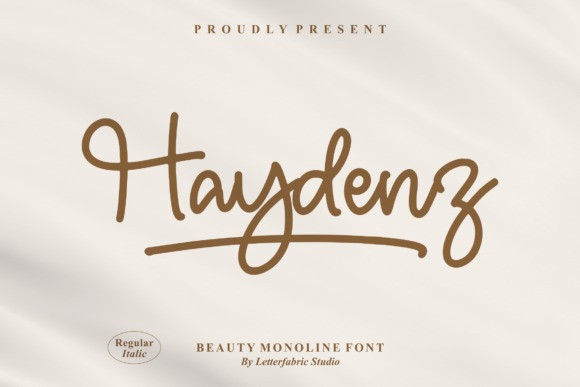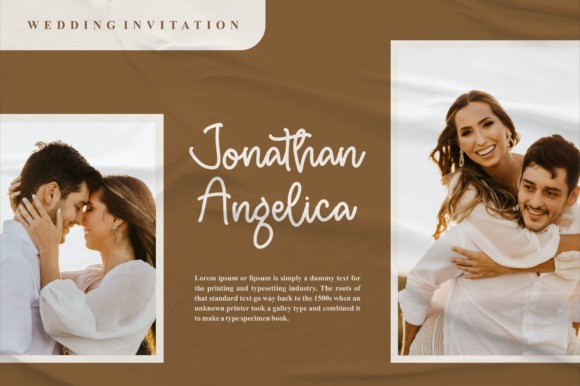
Haydenz Font
Haydenz is a fashionable and delicate script font. It is suitable for any projects such as: logos, branding projects, label, photography, watermark, special events, and all your other lovely projects that need a beautiful script taste. This font is PUA encoded which means you can access all of the glyphs and swashes with ease!